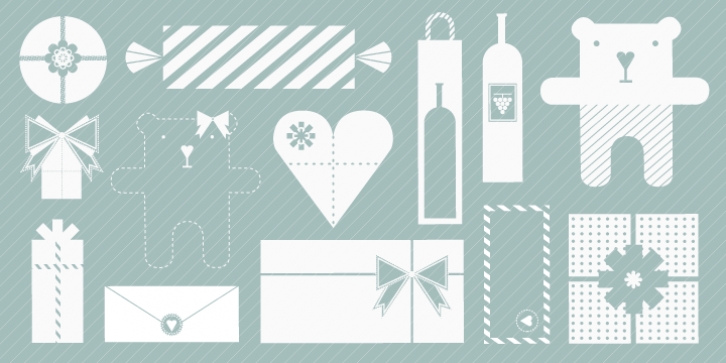
Vintage Wedding was published by Baobaby Studio. Vintage Wedding contains 4 styles and family package options.
Vintage Wedding is a collection of 432 icons, divided into 4 categories. These symbols were selected and created in order to bring to mind the past times, yet at the same time, to retain the modern design. You can find here such rare and beautiful objects as phonograph or cult eyeglasses.
The font includes many diverse elements, which will help you create compositions out of flowers, to choose commemorative vases, and even to dress the bride and groom!
· Vintage Wedding Symbols
· Vintage Wedding Table
· Vintage Wedding Arrows
· Vintage Wedding Flowers